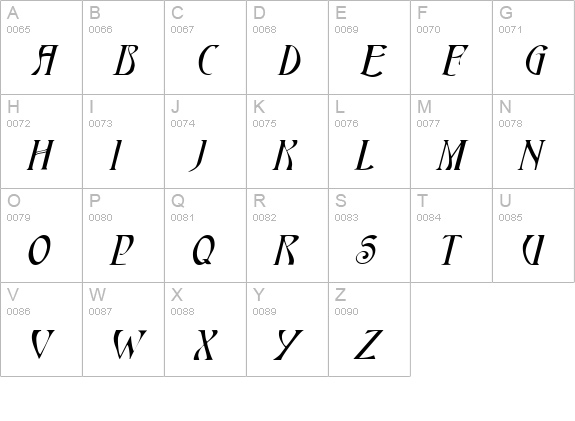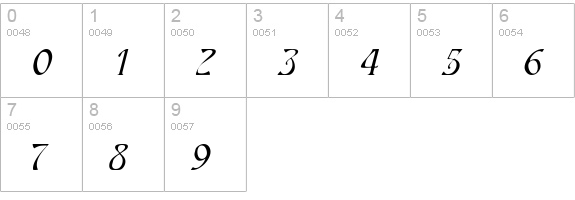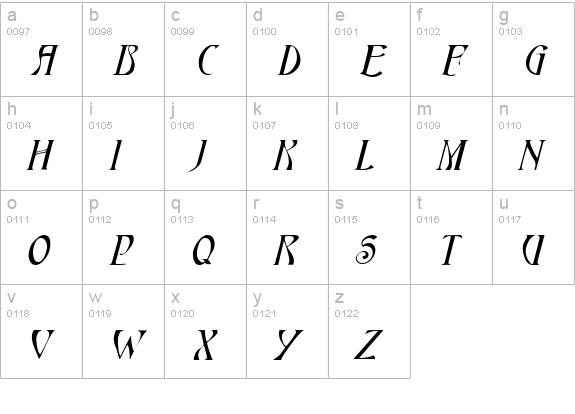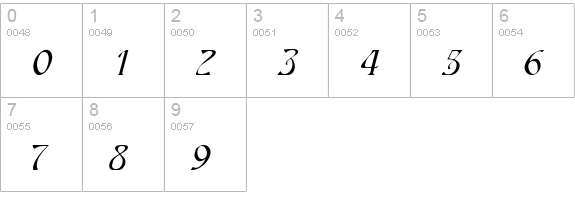
HardinCapsWide Italic Font Details
HardinCapsWide Italic is a distinctive, italic variant in the HardinCapsWide typeface family \xE2\x80\x94 well suited to design and typography projects.
HardinCapsWide Italic font is a bold and eye-catching typeface that exudes confidence and sophistication. Its wide and italic design adds a unique flair to any project, making it perfect for headlines, logos, and posters. This font is characterized by its sharp and angular letterforms, which create a sense of strength and power. The wide proportions allow each character to occupy more space, increasing visibility and making a bold statement. HardinCapsWide Italic font is versatile and can be used across various design styles, from modern and edgy to classic and elegant. Its italic slant adds a touch of dynamism and movement, making it an excellent choice for conveying energy and excitement. One of the best features of HardinCapsWide Italic font is that it is available for free download at FontsMarket.com. This means that designers and creatives can easily access and incorporate this font into their projects without any cost. Whether you are a professional designer or a hobbyist, this font offers immense value by providing a high-quality typeface that is freely available. With its bold and wide design, HardinCapsWide Italic font is sure to make a lasting impression. Its unique style and versatility make it suitable for a wide range of applications, including branding, advertising, packaging, and more. So why wait? Download this free font today from FontsMarket.com and take your designs to the next level.